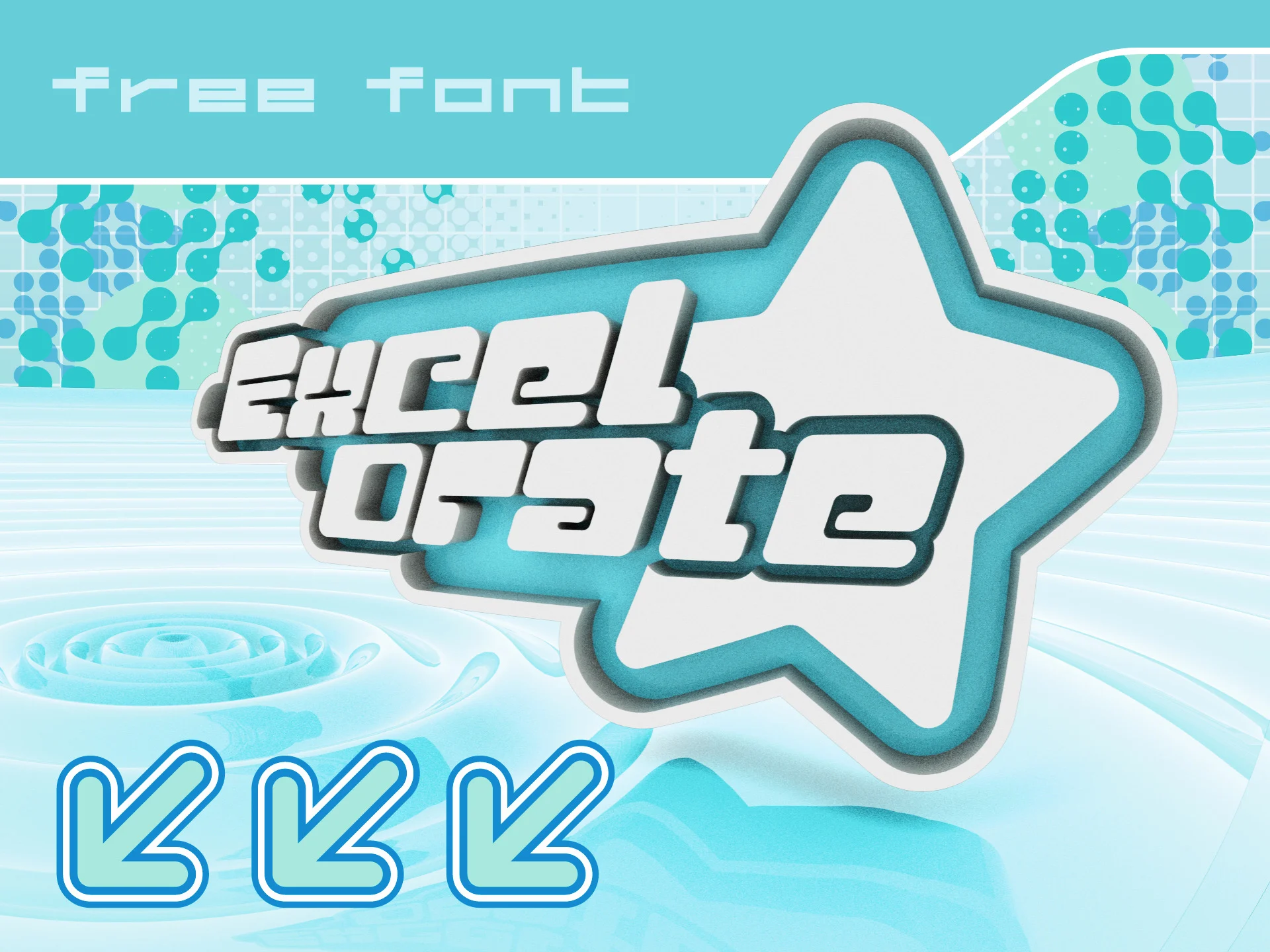
Excelorate Y2K Font
Excelorate – Free Y2K Font is a bold and stylish display font inspired by the iconic Y2K aesthetic. This font captures the vibrant and futuristic design trends of the late 1990s and early 2000s, making it perfect for projects that need a nostalgic yet modern touch. Whether you’re working on digital or print designs, Excelorate brings a unique and eye-catching look to your creative work.
This free font includes uppercase letters, numerals, and a wide range of punctuation marks, ensuring flexibility for various design needs. Its bold structure and futuristic feel make it ideal for posters, headlines, and gaming graphics. Whether you’re designing a tech-themed project or a retro-futuristic artwork, Excelorate enhances your visuals with a distinctive Y2K font vibe.
Excelorate is more than just a font—it’s a statement piece that embodies the digital optimism of the early 2000s. Its versatility makes it suitable for branding, social media graphics, and creative typography. Download it now and bring the energetic, high-tech spirit of Y2K design to your projects effortlessly.